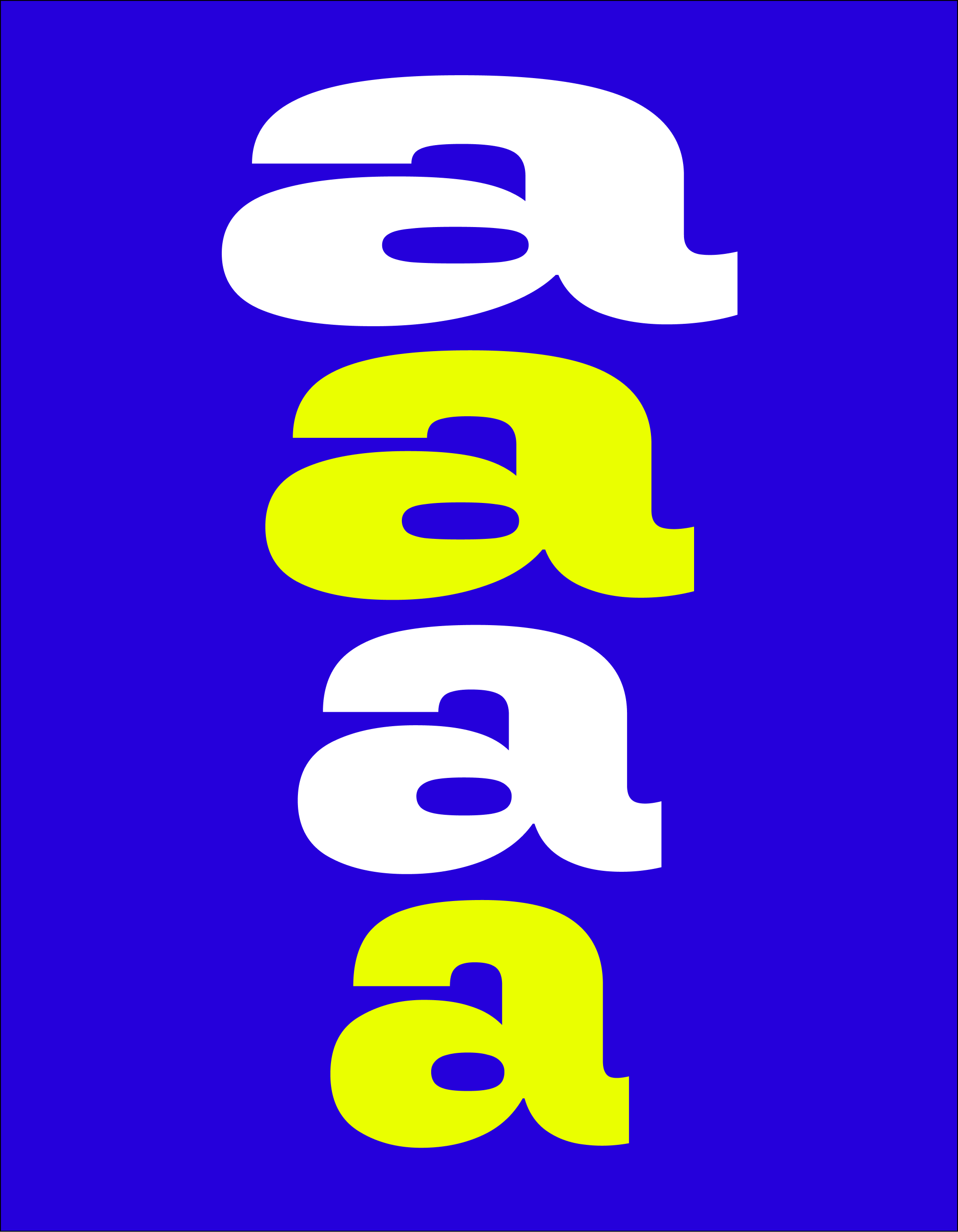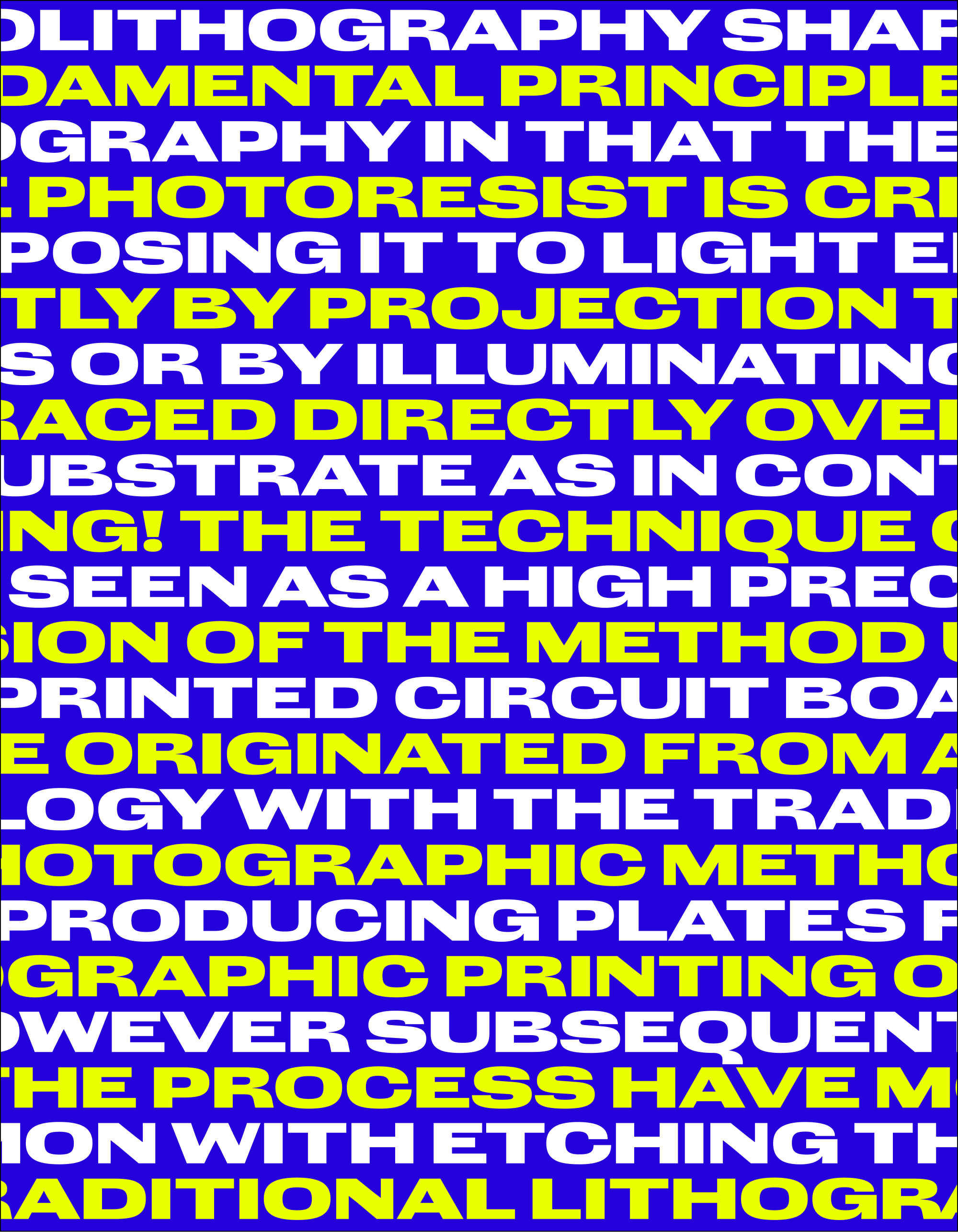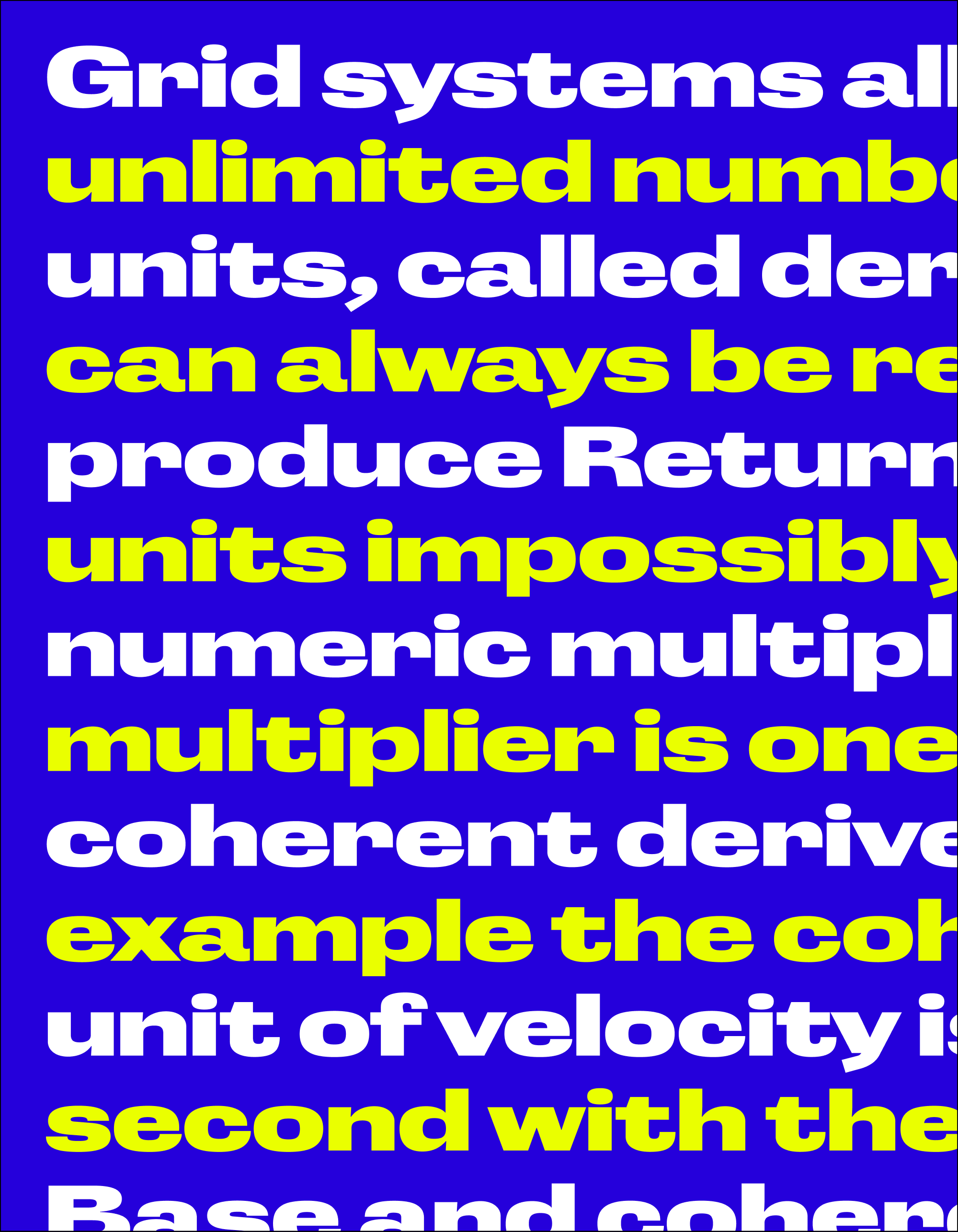
July’s Font of the Month: Gimlet Sans Wide
I’ve decided that I don’t have enough wide fonts in my library. Sure, I have stuff like Fit and Megavolt, but what I want is something less stylized. So for the rest of my summer, I’m taking a walk on the wide side.
With stretchiness and elasticity baked into its drawing style, Gimlet Sans already had one foot out the door. The typeface began as a single Black weight back in 2020, and that’s also where I chose to start the new Wide, Extra Wide, and Extended widths that I’m sending you today.
This is just a quick update (for now), and I honestly don’t have a lot to say about it. But in a way that’s kinda the point of a wide font — you can fill a lot of space without having to say very much.